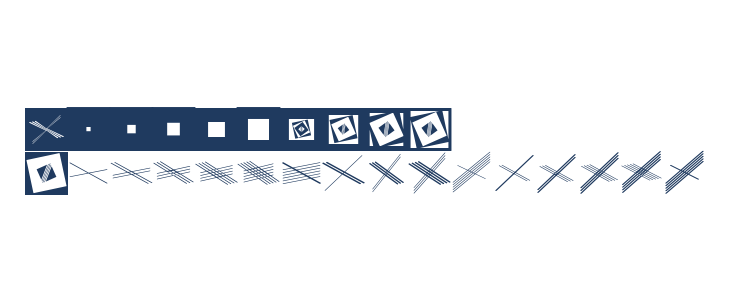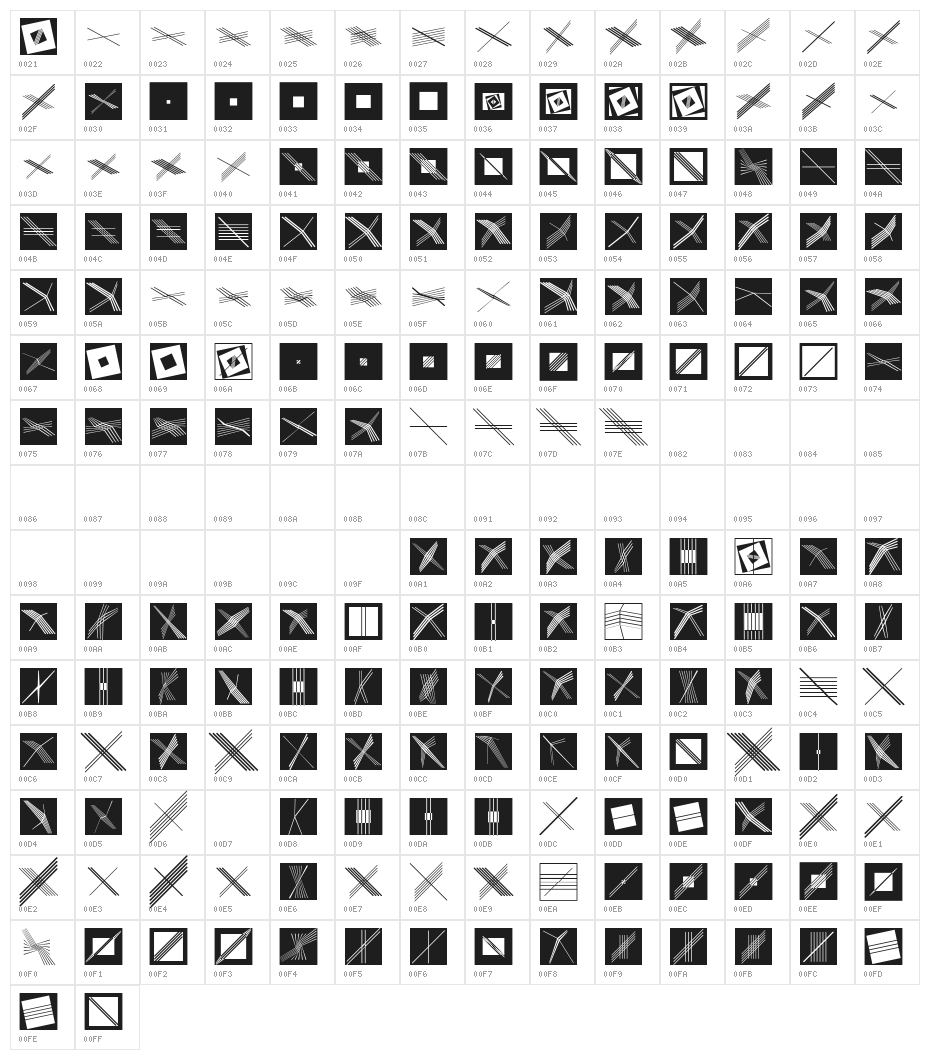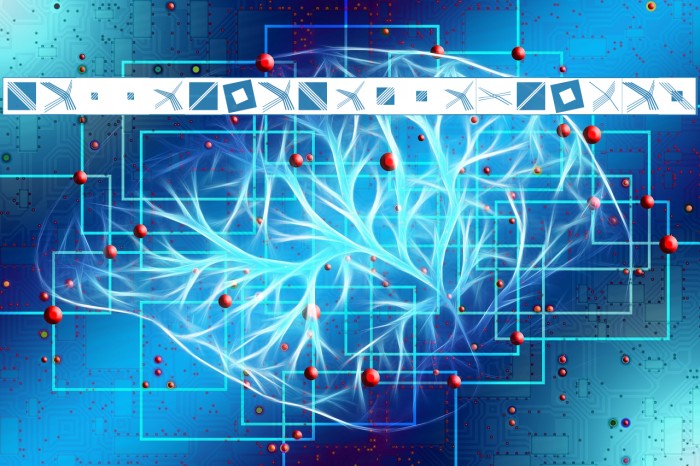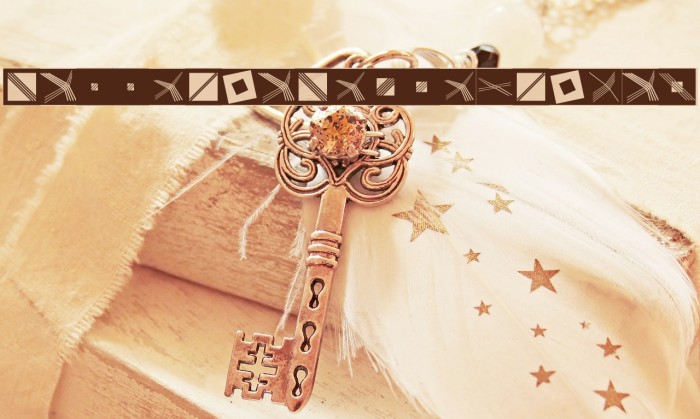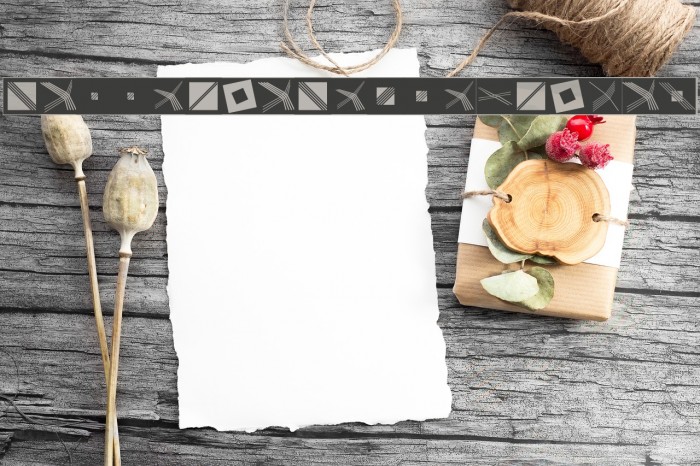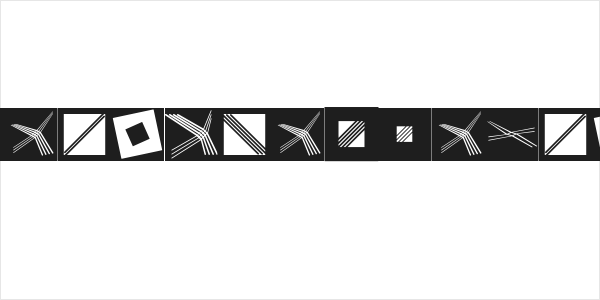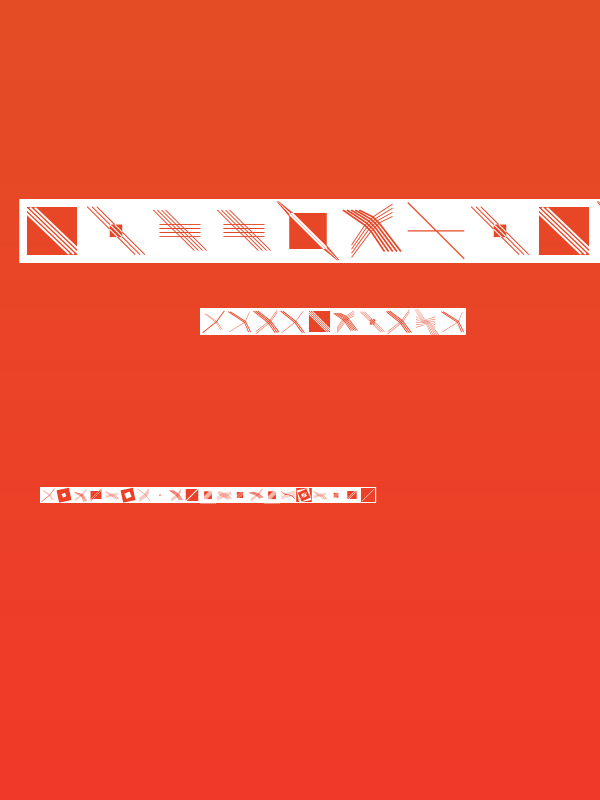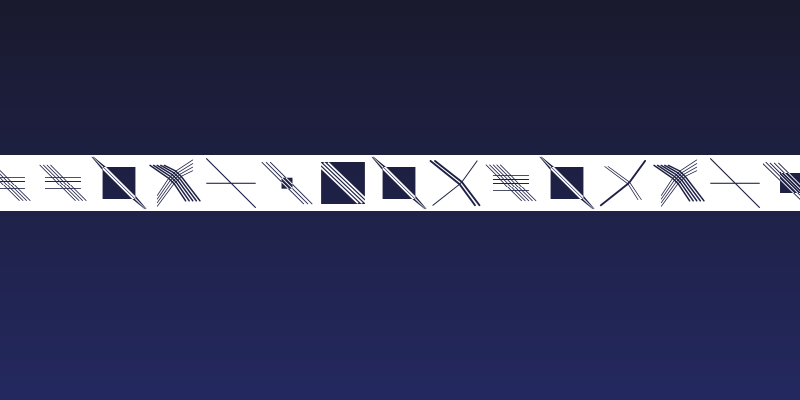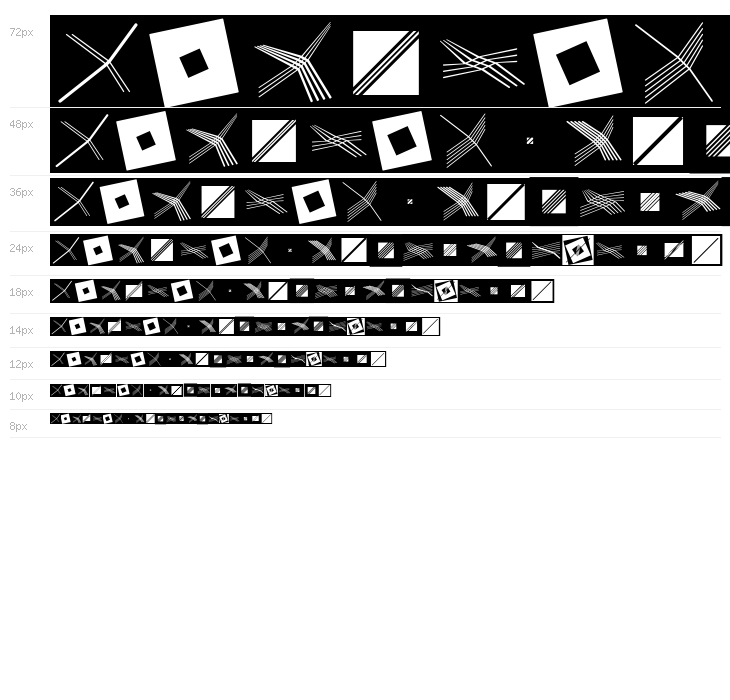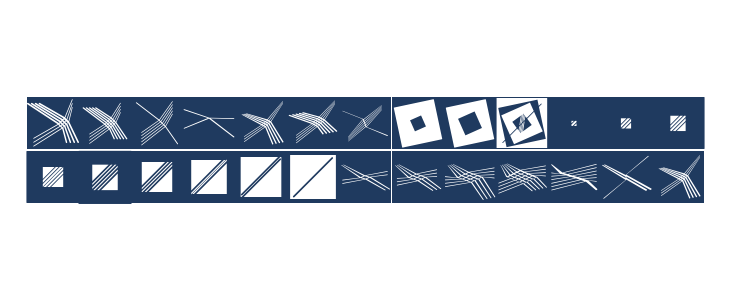
GalleriaGeometricaB Font
GalleriaGeometricaB Description
A highly abstract, geometric font composed of intersecting lines and squares, with each character represented by unique arrangements of straight lines and filled or outlined boxes. The design is non-traditional and prioritizes visual pattern over legibility, resulting in a striking, modern, and experimental appearance.
| Overall Style | Decorative, Modern, Experimental |
| Use Case | Logos, Headlines, Posters, Artistic projects |
| Proposed Projects | Art installations, avant-garde posters, album covers, experimental branding, digital art projects. |